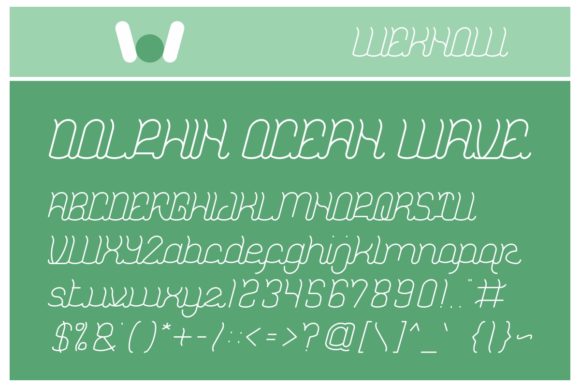
Dolphin Ocean Wave Font: A Fun and Quirky Display Font
Are you tired of using the same old fonts for your creative projects? Look no further than the Dolphin Ocean Wave font! This enchanting display font embodies fun, quirkiness, and authenticity, making it the perfect addition to any designer’s toolkit. In this article, we’ll dive into the world of Dolphin Ocean Wave and explore its features, benefits, and uses.
What is Dolphin Ocean Wave Font?
Dolphin Ocean Wave is a unique and playful display font that captures the carefree spirit of the ocean. Its wavy lines and curly tails evoke the movement and fluidity of ocean waves, making it a perfect fit for designs that require a touch of whimsy and fun. Whether you’re working on a logo, poster, or social media graphic, Dolphin Ocean Wave is sure to make your creative idea stand out.
Key Features of Dolphin Ocean Wave Font
- Fun and Quirky: Dolphin Ocean Wave is the perfect font for designers who want to add a touch of playfulness to their designs. Its unique and irregular shapes make it a standout from more traditional fonts.
- Authentic: This font is inspired by the natural world, and its organic feel makes it perfect for designs that require a sense of authenticity.
- Enchanting: Dolphin Ocean Wave has a mesmerizing quality that will draw your audience in. Its wavy lines and curly tails create a sense of movement and energy.
- Display Font: This font is designed specifically for display use, making it perfect for headlines, titles, and other attention-grabbing elements.
Benefits of Using Dolphin Ocean Wave Font
So why should you choose Dolphin Ocean Wave for your next design project? Here are just a few benefits of using this amazing font:
- Adds Visual Interest: Dolphin Ocean Wave adds a touch of visual interest to any design, making it perfect for projects that require a bit of flair.
- Evokes Emotion: The playful and carefree nature of this font makes it perfect for designs that require a sense of fun and whimsy.
- Versatile: Dolphin Ocean Wave can be used for a wide range of design projects, from logos and posters to social media graphics and more.
- Easy to Read: Despite its playful nature, Dolphin Ocean Wave is still easy to read, making it perfect for designs that require a clear and concise message.
Uses for Dolphin Ocean Wave Font
So what can you use Dolphin Ocean Wave for? The possibilities are endless! Here are a few ideas to get you started:
- Logos: Use Dolphin Ocean Wave to create a fun and quirky logo that reflects your brand’s personality.
- Posters: Add a touch of whimsy to your posters with Dolphin Ocean Wave. It’s perfect for promoting events, products, or services.
- Social Media Graphics: Use Dolphin Ocean Wave to create eye-catching social media graphics that will help your brand stand out.
- Packaging: Add a touch of fun and personality to your packaging with Dolphin Ocean Wave.
Tips for Using Dolphin Ocean Wave Font
Here are a few tips for getting the most out of Dolphin Ocean Wave:
- Use it Sparingly: Because Dolphin Ocean Wave is a display font, it’s best to use it sparingly. Use it for headlines and titles, and pair it with a more traditional font for body text.
- Experiment with Colors: Dolphin Ocean Wave looks great in a wide range of colors. Experiment with different hues and combinations to find the perfect look for your design.
- Pair it with Other Fonts: Don’t be afraid to pair Dolphin Ocean Wave with other fonts. Its unique style makes it a great addition to any font combination.
Dolphin Ocean Wave is a fun and quirky display font that’s perfect for designers who want to add a touch of whimsy to their designs. Its unique and enchanting style makes it a standout from more traditional fonts, and its versatility makes it perfect for a wide range of design projects. Whether you’re working on a logo, poster, or social media graphic, Dolphin Ocean Wave is sure to turn your creative idea into a true standout!